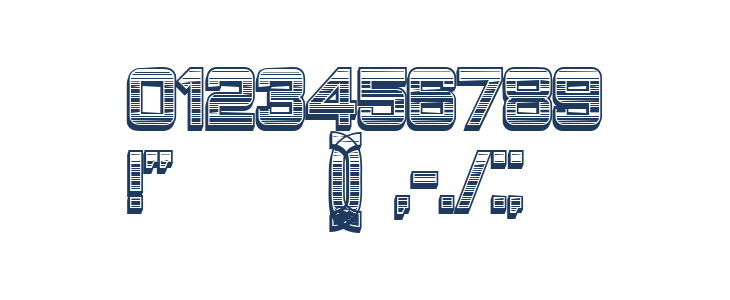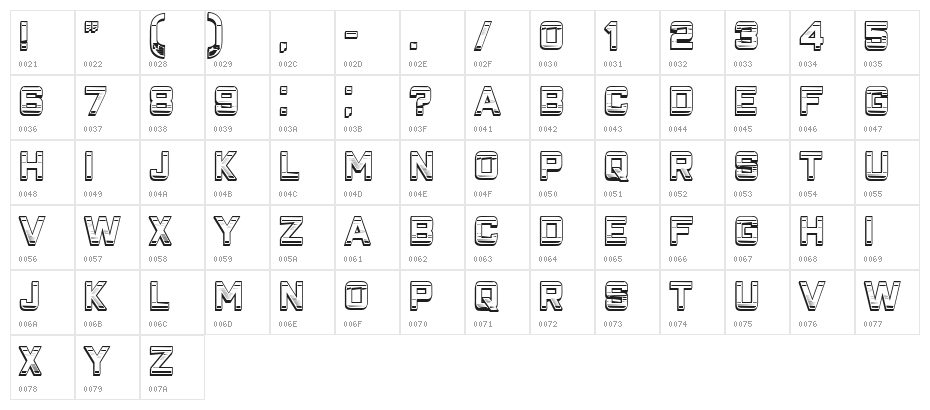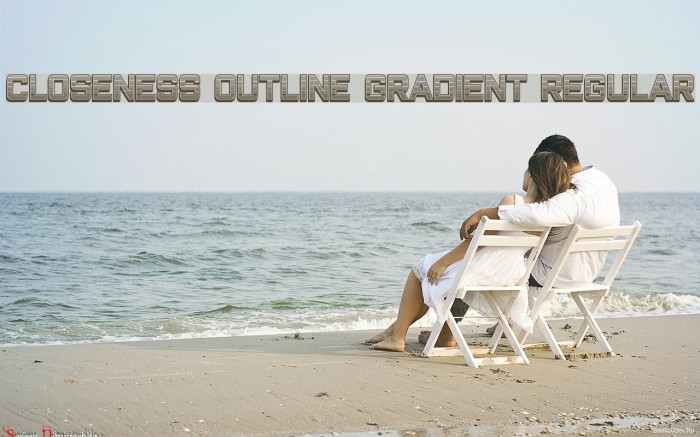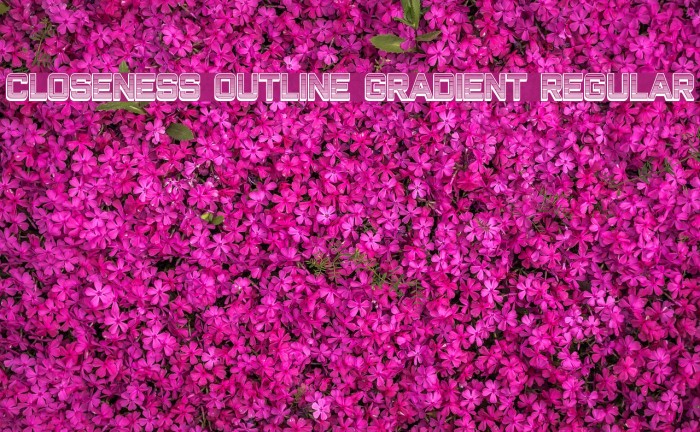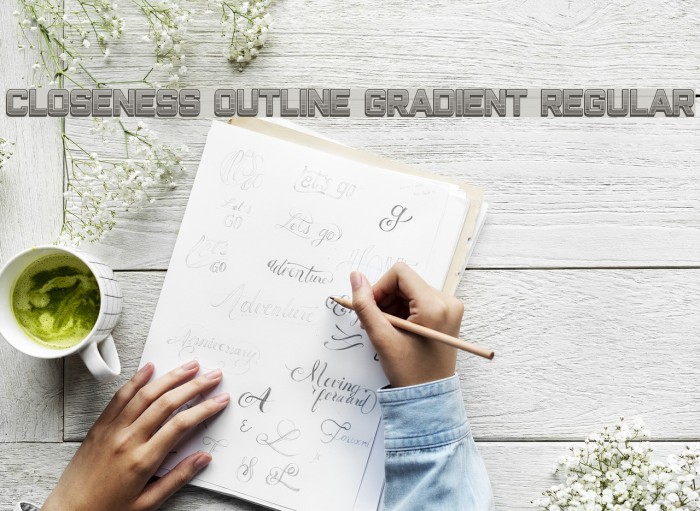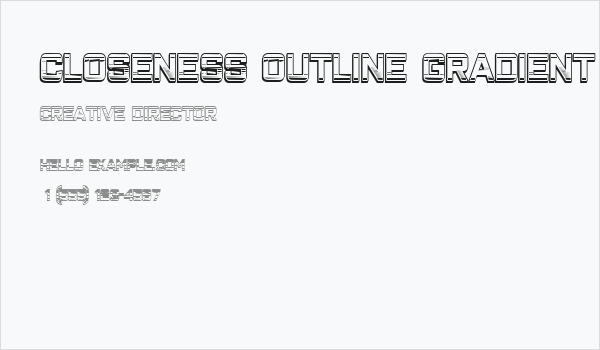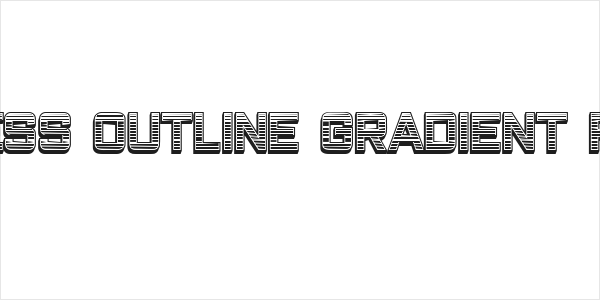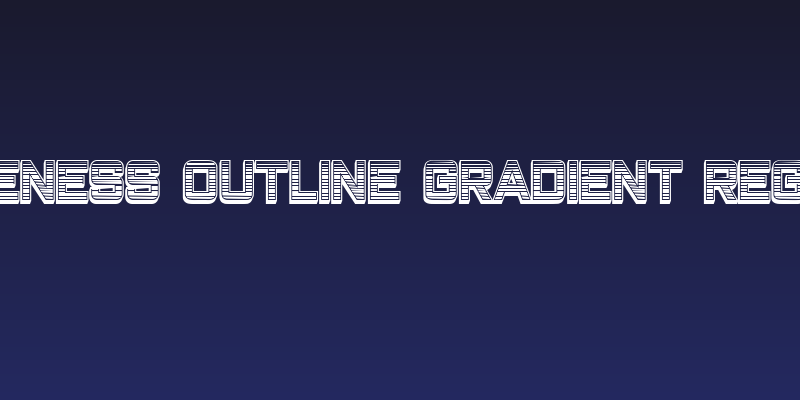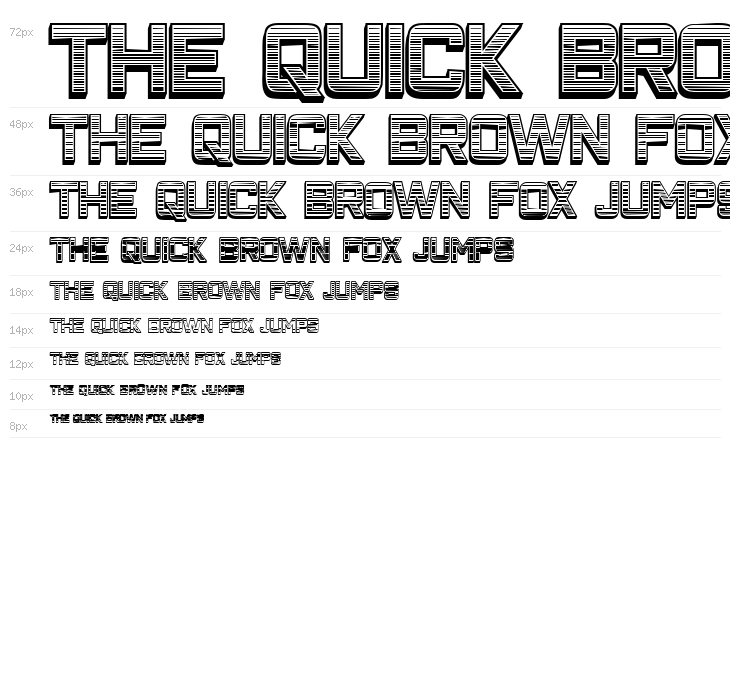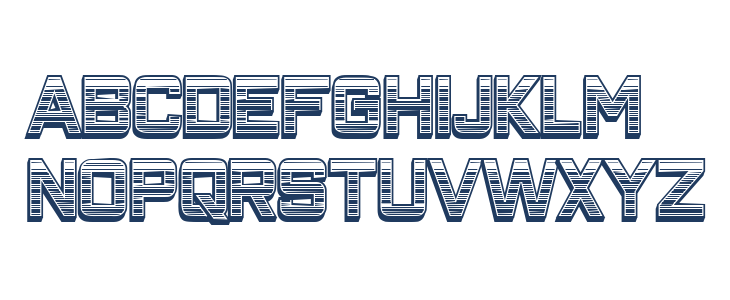
Closeness Outline Gradient Regular Font
Closeness Outline Gradient Regular Description
This font features a bold, outlined style with a gradient effect that gives it a three-dimensional appearance. The characters are uppercase and numerals, with a consistent structure that emphasizes clarity and impact. The lines within the outlines create a sense of depth and texture, making it stand out in any design. Its geometric shapes and precise angles contribute to a modern and dynamic look, suitable for eye-catching headlines or branding materials. The font's unique style is both decorative and functional, offering versatility in various design contexts.
| Proposed Projects | Ideal for branding, posters, headlines, and any design requiring a striking visual impact. |